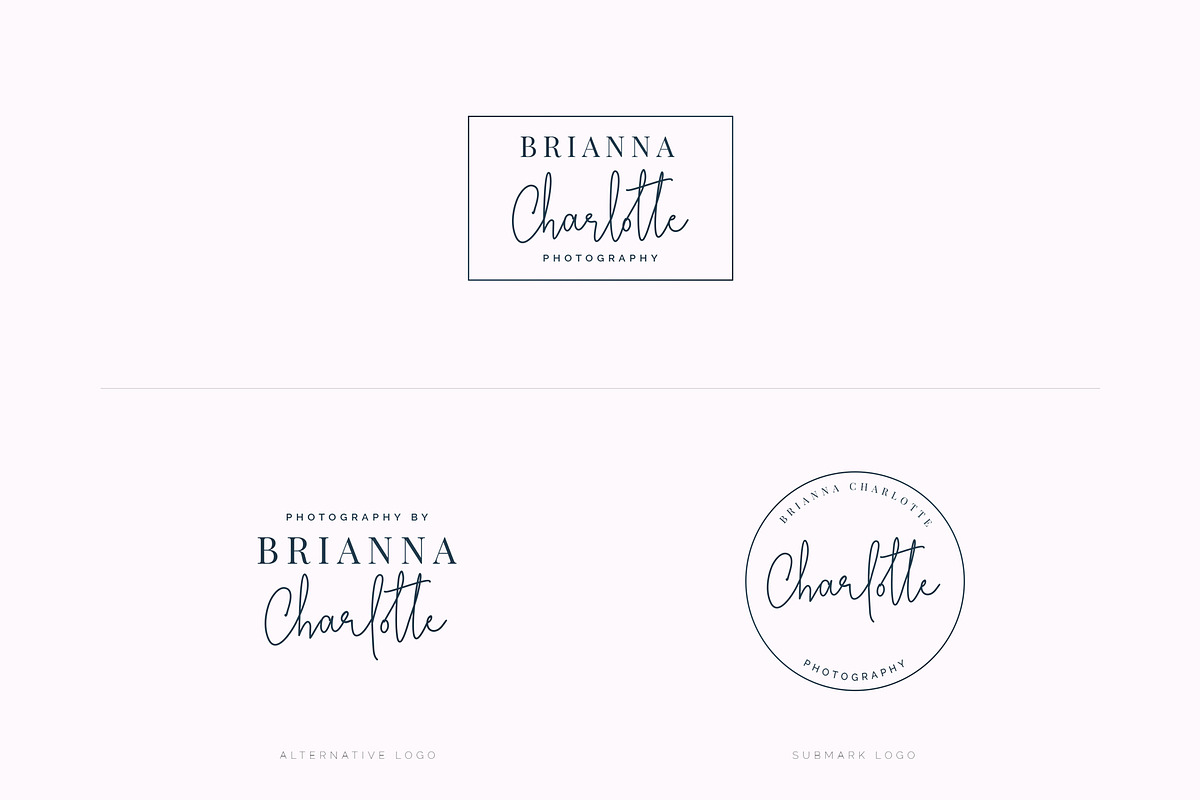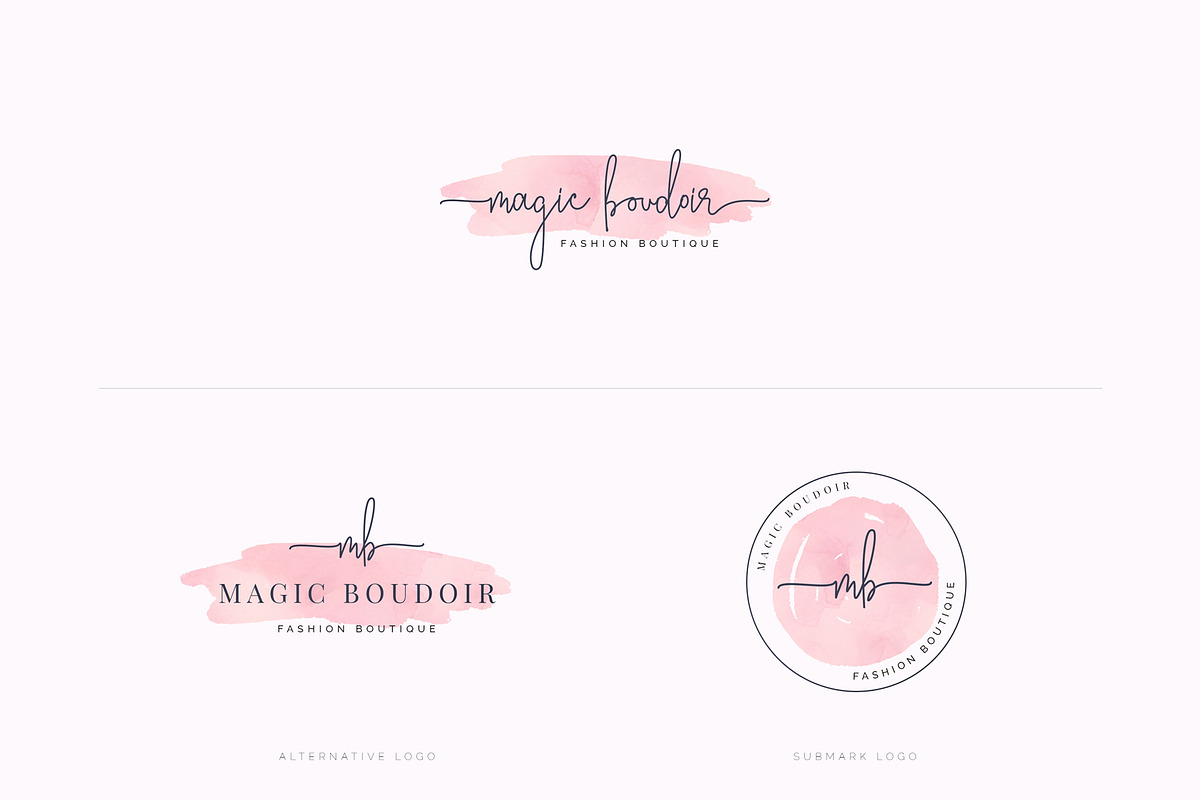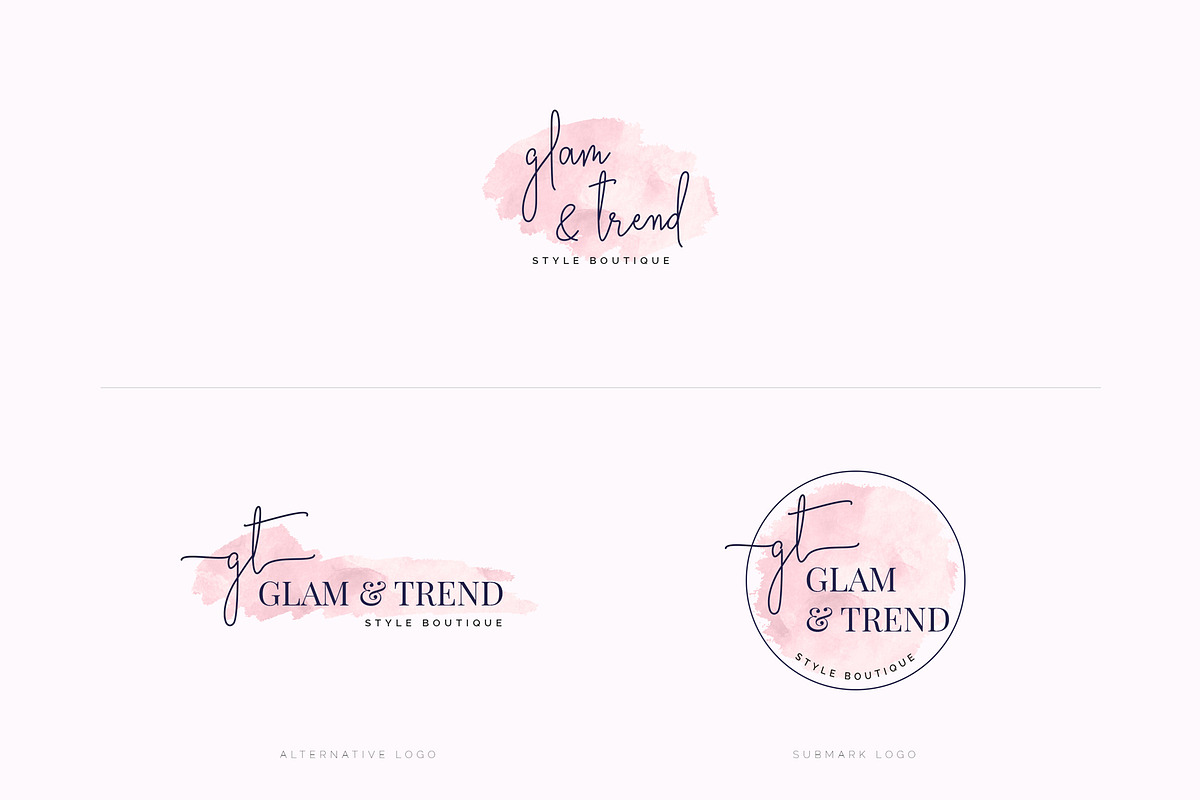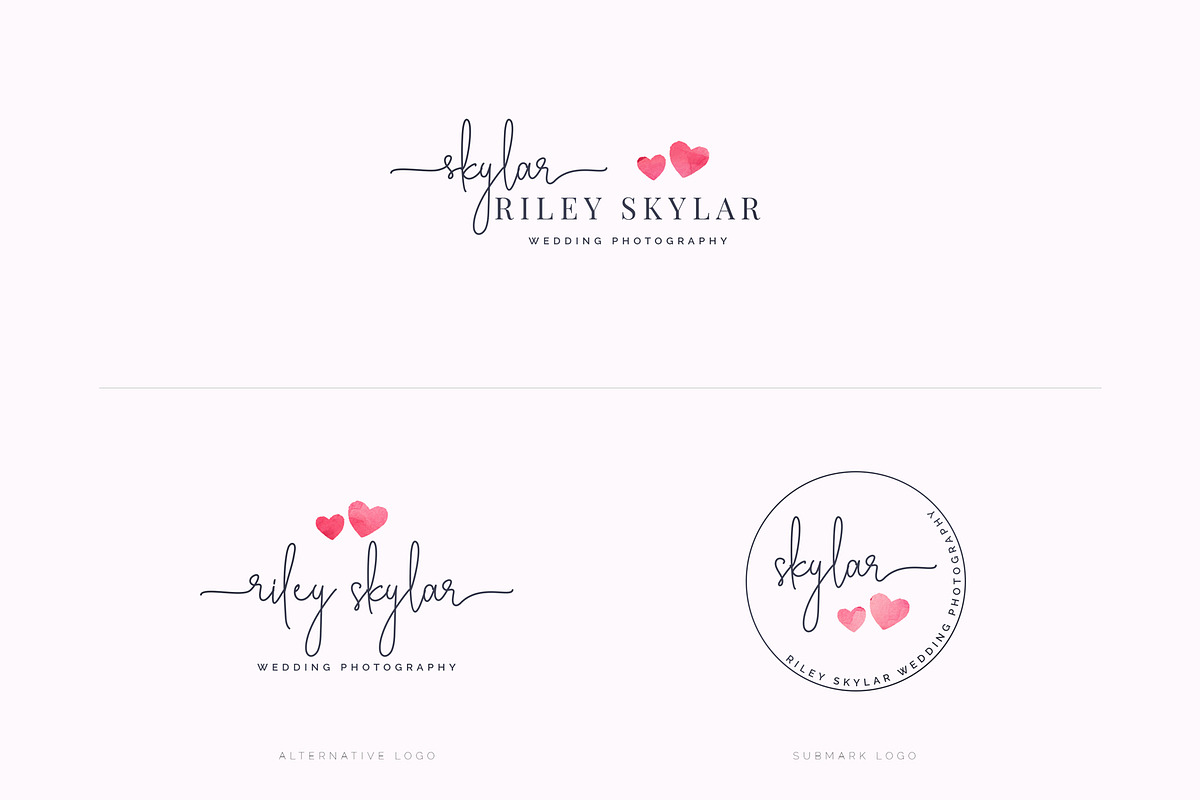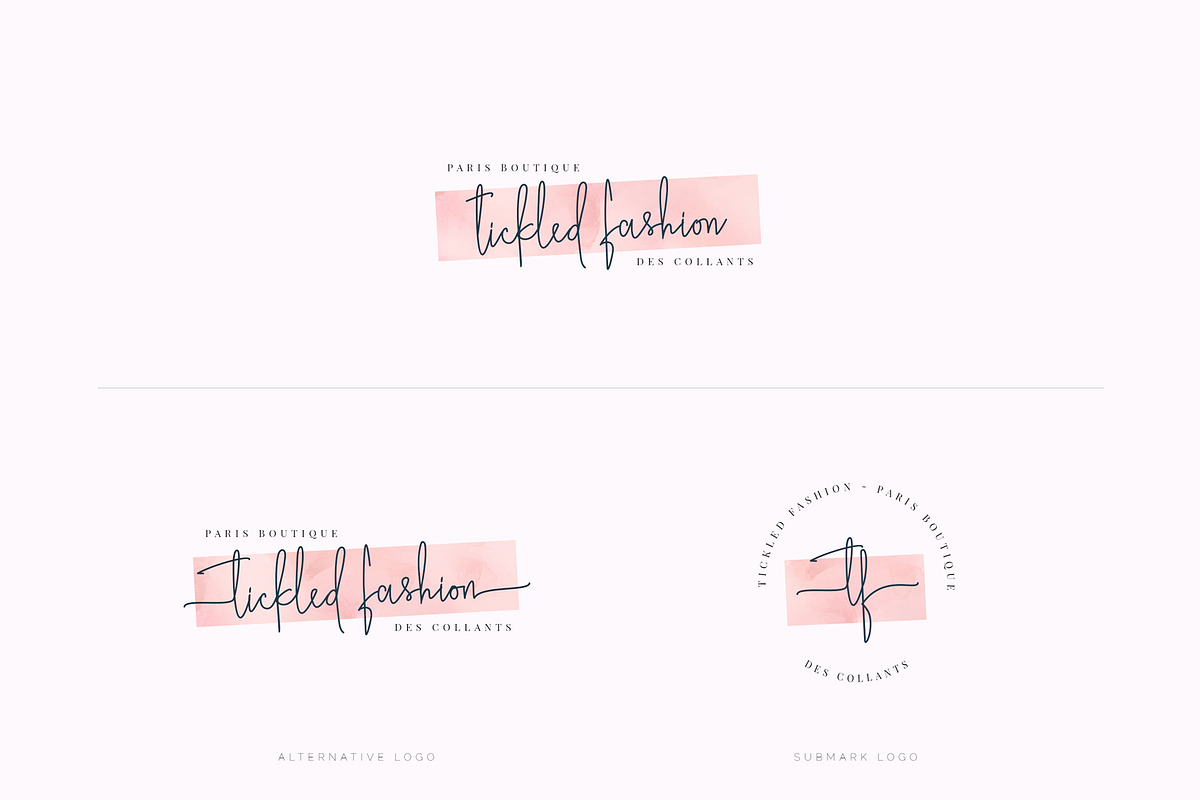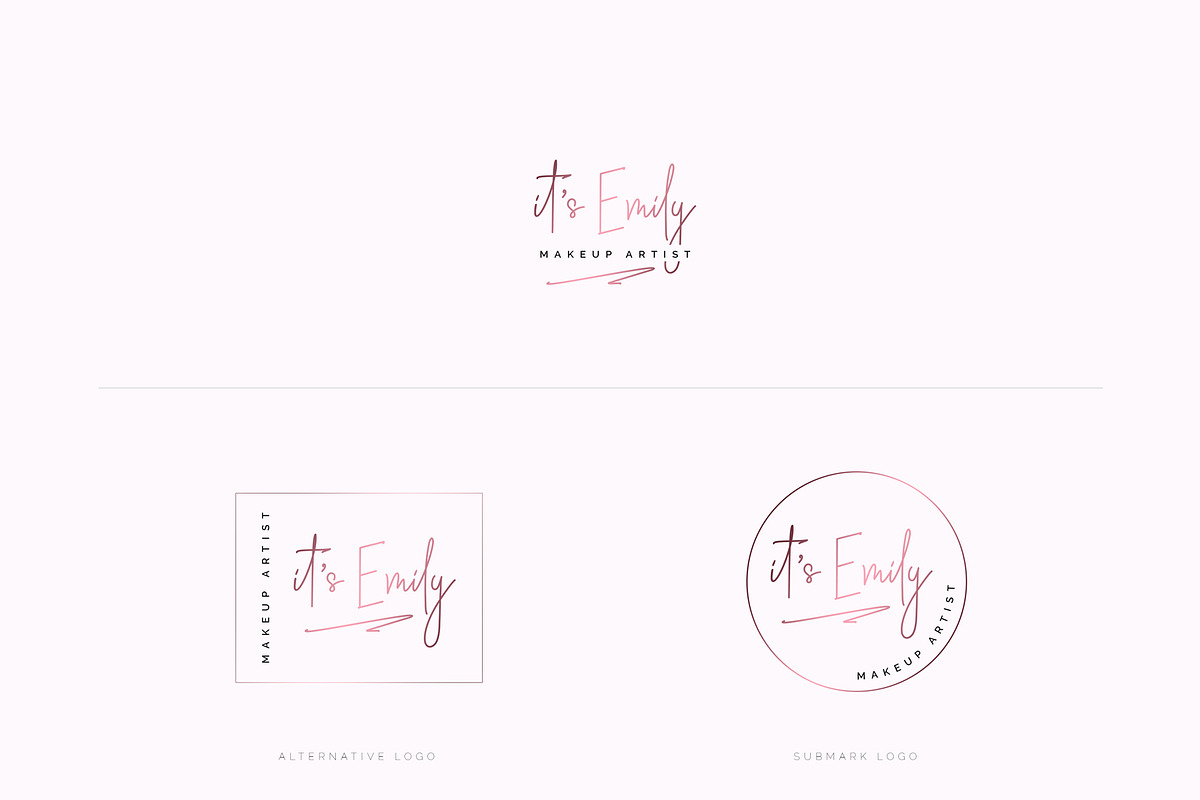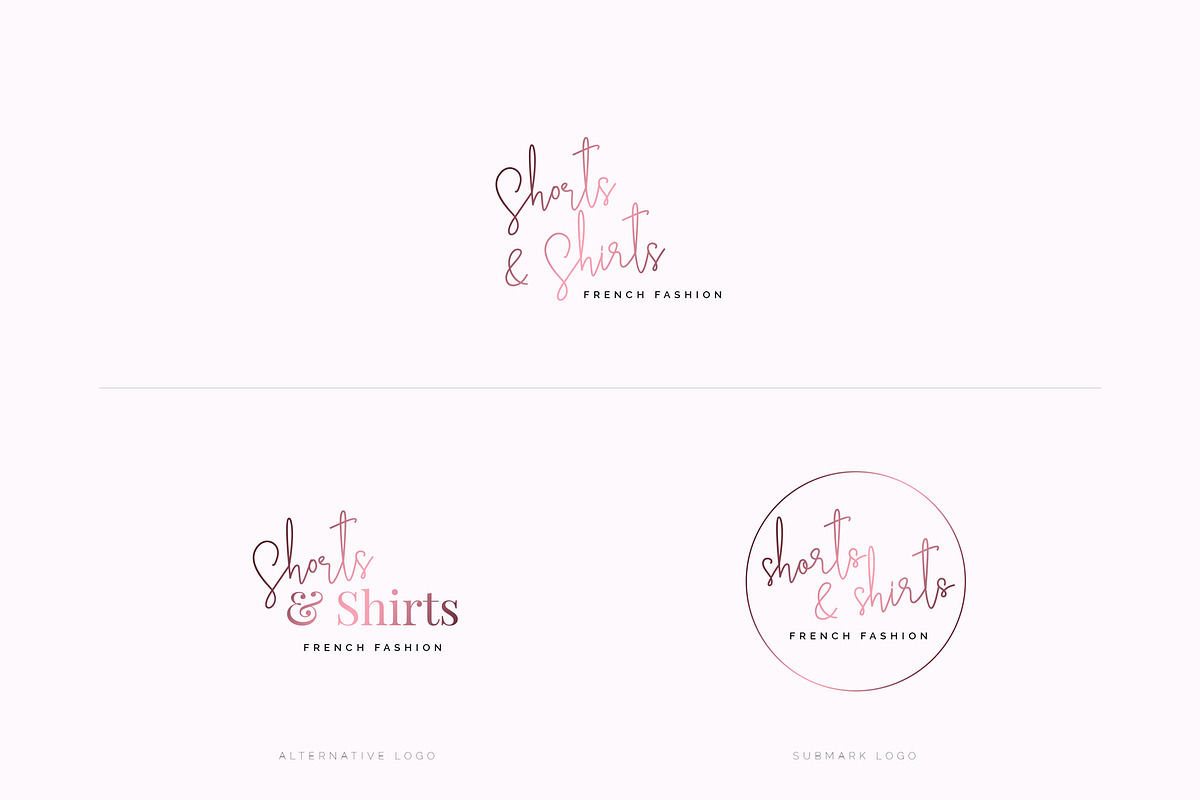
Stylish Charm Brand & Logotype Font
Presenting the new fashionable "Stylish Charm" chic handwriting script font with 90 pre-made branding logos with stunning textures perfect for any branding in web or print.
"Stylish Charm" contains over 140 handwritten connecting ligatures and a full set of lowercase alternates to look your writing more natural. When you will be use Opentype features this font will look as natural handwriting also you can change the lowercase letters.
This font has also featuring built in Beginning and Ending swash letters to look your writing to next level. All of the logos are made using Adobe Photoshop and Illustrator with Opentype features and all the elements are vector in each logo. So there is nothing to lose!!! It doesn’t matter how much you enlarge any logo.
140+ DISCRETIONARY LIGATURES
All the discretionary ligatures are made to look your writing as natural writing with ink pen, they are more decorative in nature so you are ready to make something amazing with this font very easily.
90 PRE-MADE BRANDING LOGOS
If you need beautiful logo design with the shortest possible time, you are at right place. All of logos are just perfect for any photographers, interior designers, fashion and beauty stylists, small boutiques, marketers, online bloggers, any event planners, wedding photography, florist artist, fashion boutiques, beauty artists and any businesses. All of the logos are made to ease of use.
THE PERFECT COMBINATION WITH SANS AND SERIF
Stylish Charm – is suitable with most standard serif and sans serifs. You can see the premade logo examples how nicely they are matching. No one will be better than you when you’re are easily matching them.